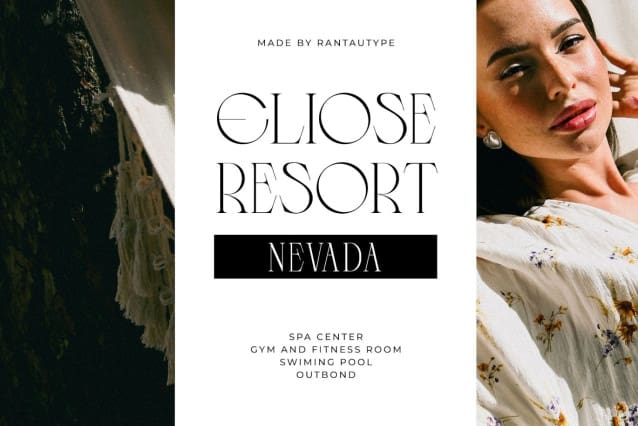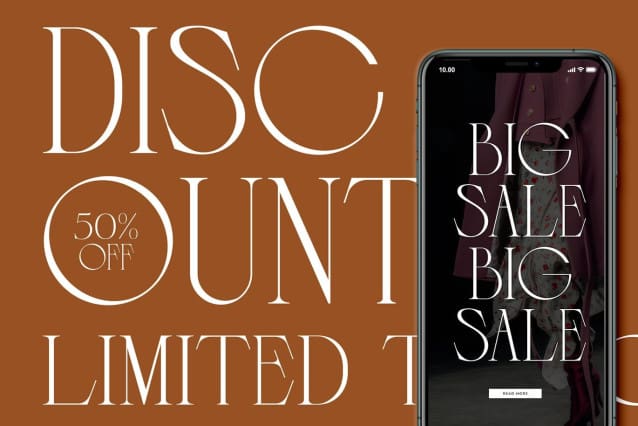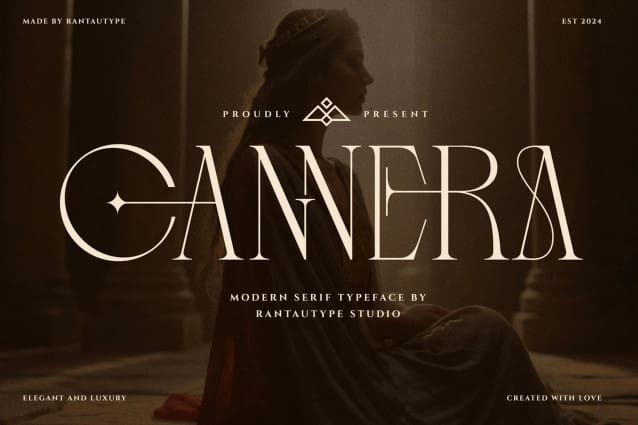
Cannera Font
Cannera Font is a modern Serif font with a beautiful ligature. Cannera inspires with its luxury branding and trendy visual design.
CanneraFont is a perfect choice for any creative, chic and lifestyle design, like logos, advertisements, watermarks on photographs, stationery, branding projects, displays and magazines, invitations, brands corporate, product design, labels, commercial projects and many other projects with a touch of elegance.